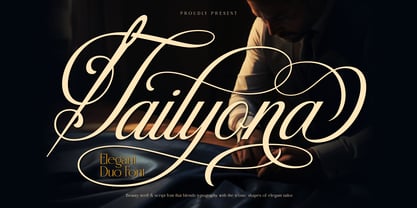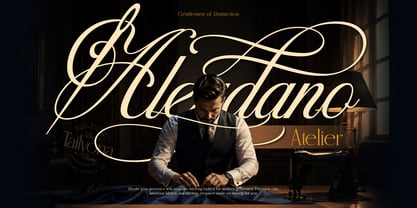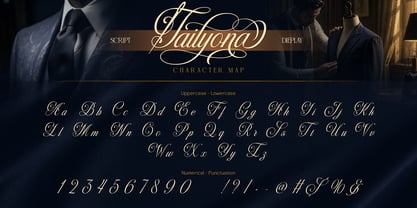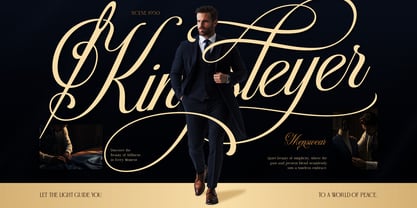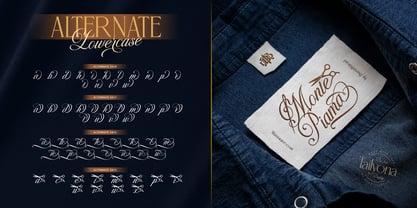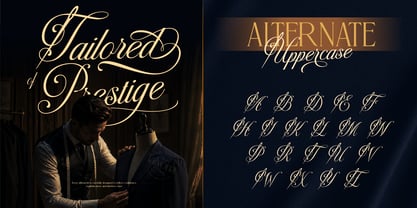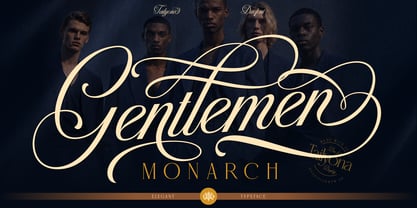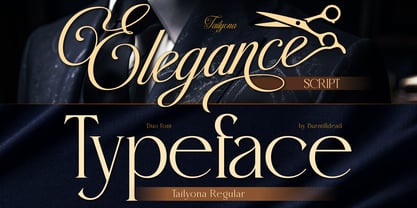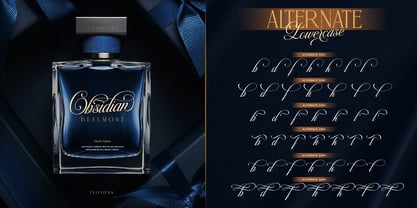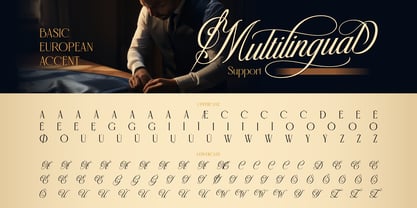
Tailyona
Tailyona is a refined elegant duo font that blends a graceful script with a clean, sophisticated serif. Designed to capture the essence of luxury and timeless style, this font brings a perfect harmony between expressive calligraphy and modern editorial typography.
The script style features flowing swashes and delicate curves, inspired by classic tailoring and vintage craftsmanship—making every word feel personal, artistic, and premium. Paired with a minimalist serif, Tailyona creates a beautiful contrast that’s both stylish and highly readable.
Whether you're designing for fashion, branding, or high-end visuals, Tailyona helps you create a strong, elegant impression effortlessly.
Perfect for: Luxury branding & logo design, Fashion editorials & magazines, Wedding invitations & stationery, Beauty & lifestyle brands, Packaging design, Social media content, Elegant typography projects
Features: A - Z set (Uppercase & Lowercase), Number, Punctuation, Alternate, Multilingual